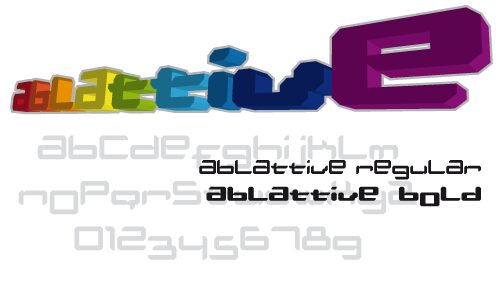
Ablattive Bold by TracerTong is a free futuristic display font with broad, weighty letters and a distinctly mechanical profile. Chamfered corners and abrupt cut-ins suggest fabricated panels.
Game title cards and electronics packaging draw on the same engineered silhouette, though one favors spectacle and the other product identity. The lettering also suits music merchandise and event posters with dark industrial or vivid cybernetic artwork. Across these uses, its clipped joints point directly to classic arcade machines, robotics, and cinematic science-fiction themes.